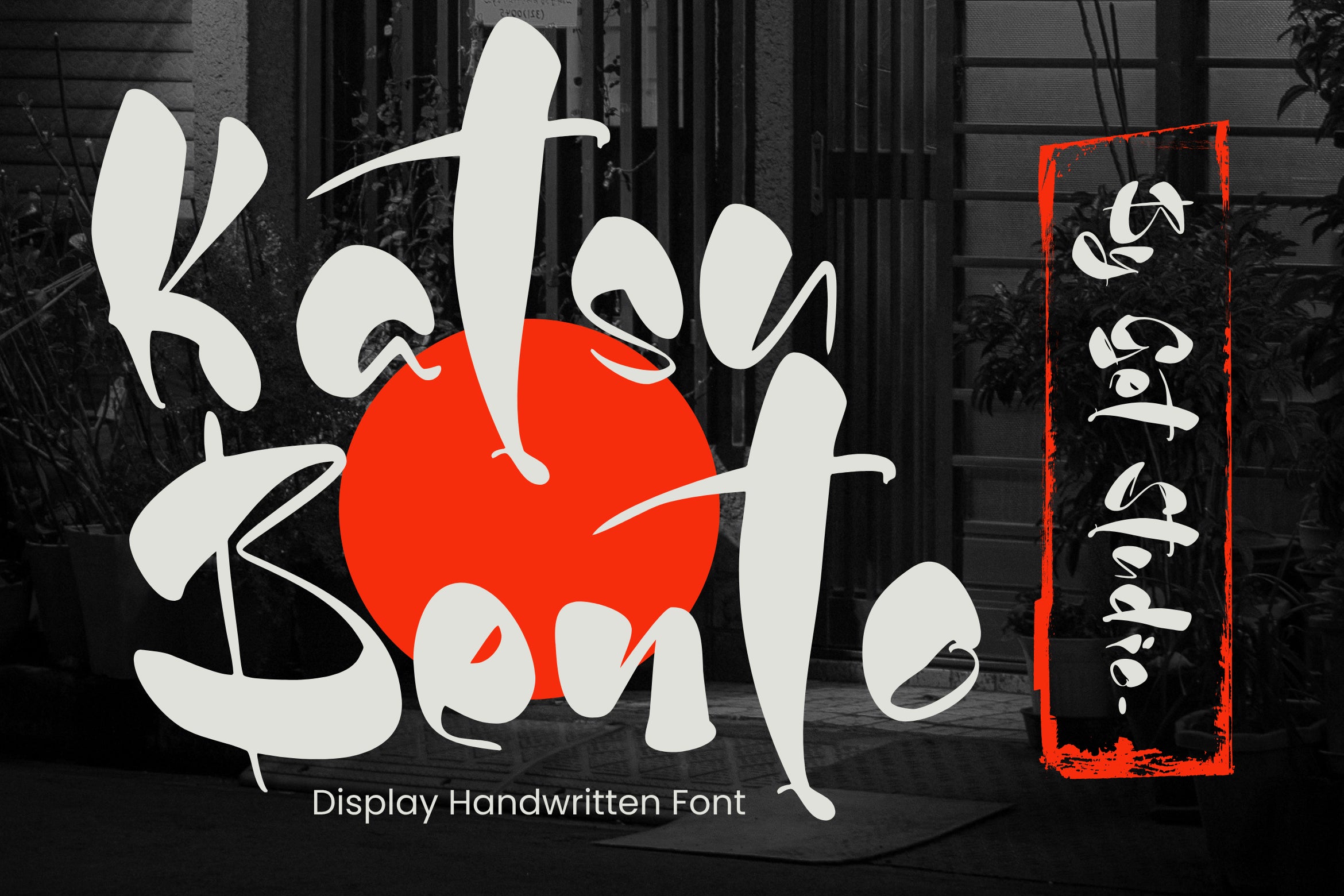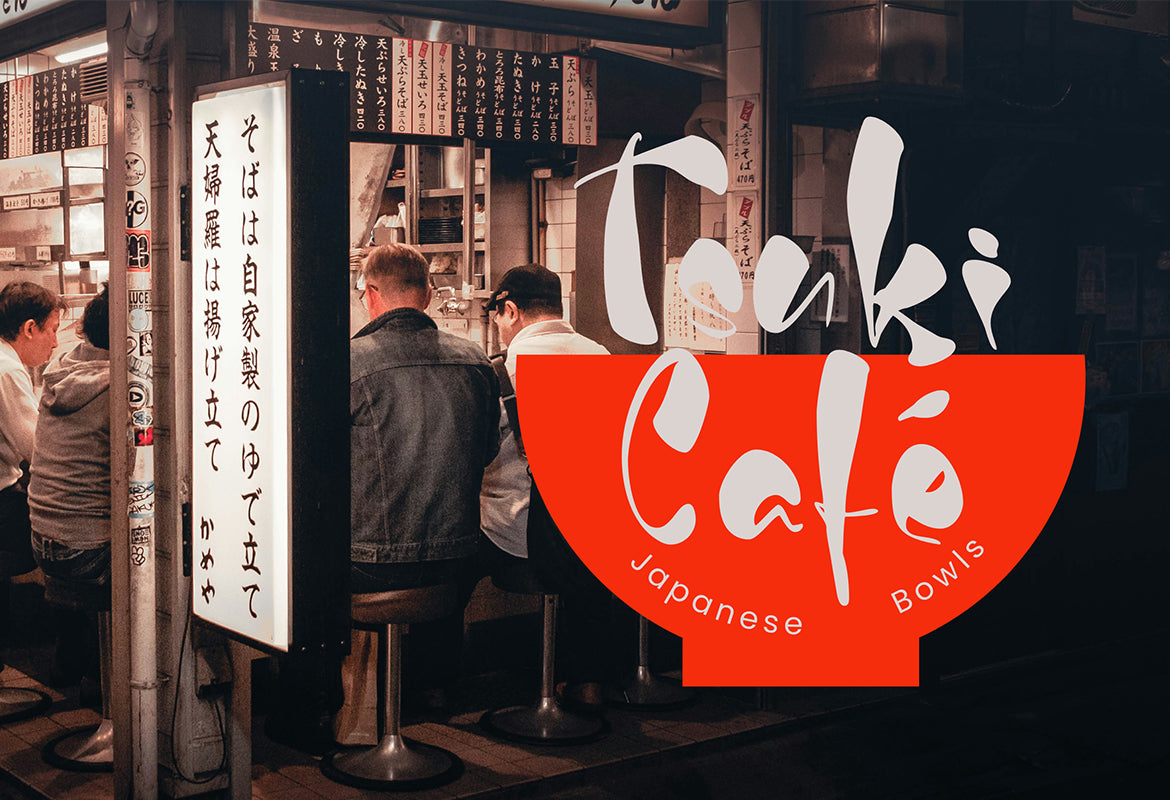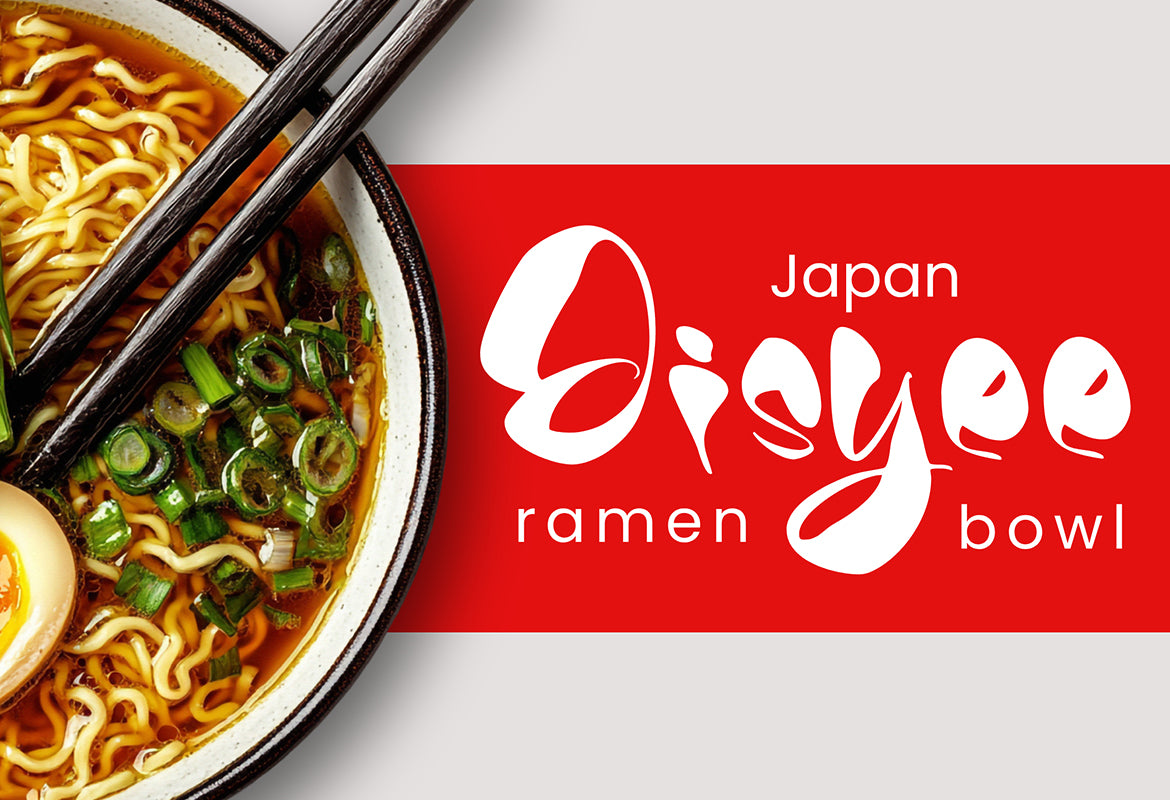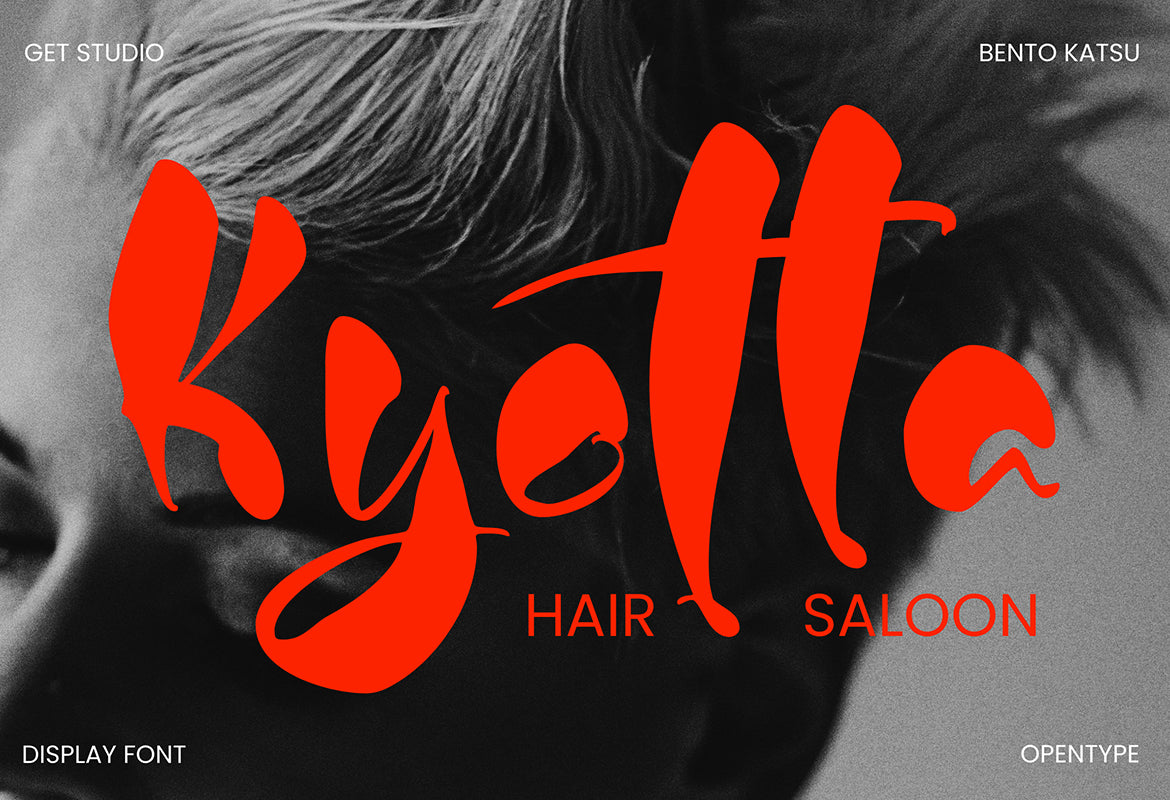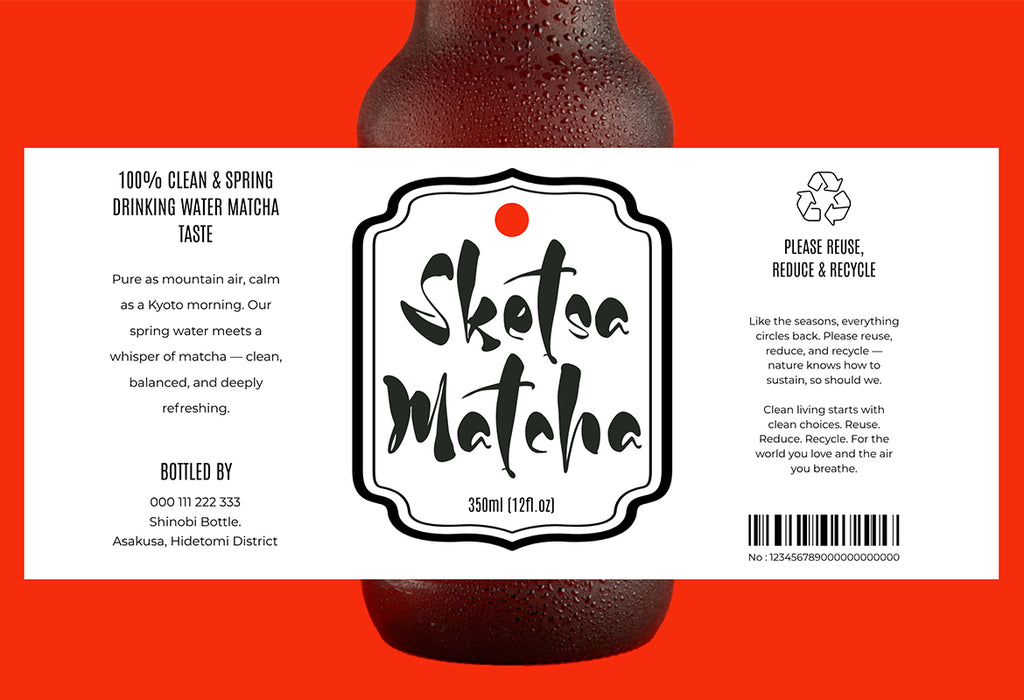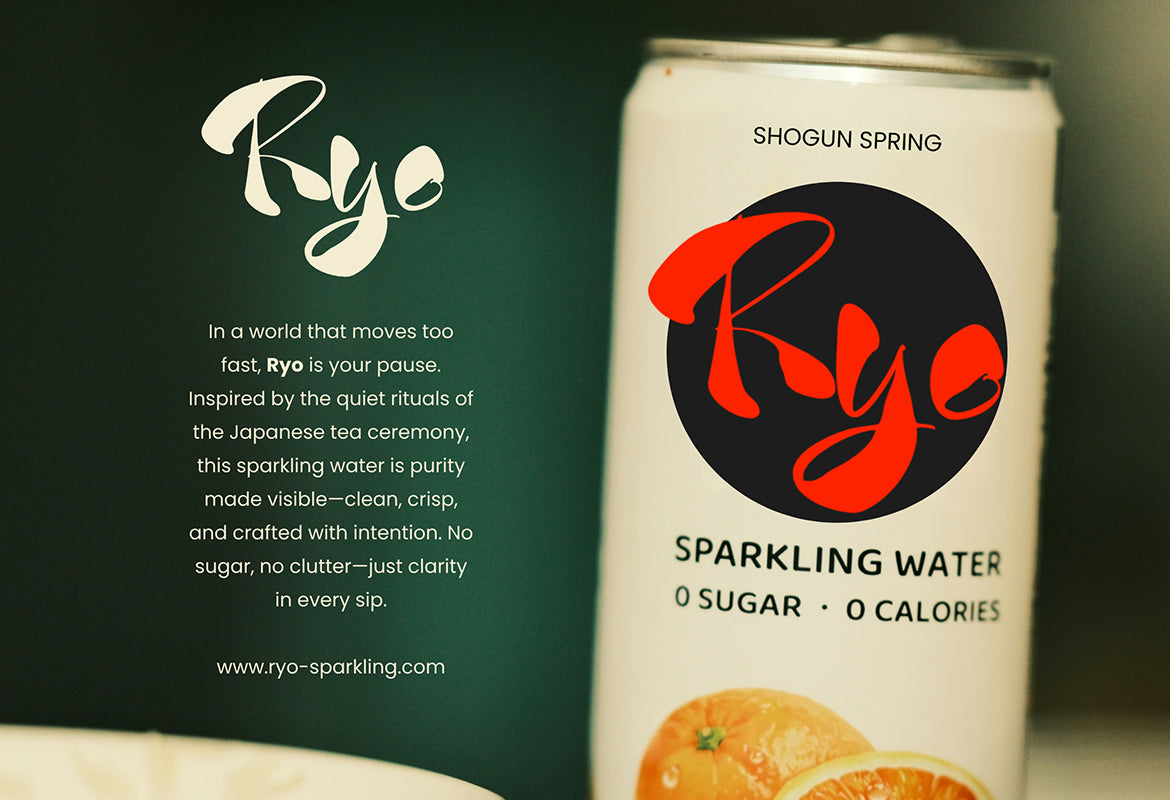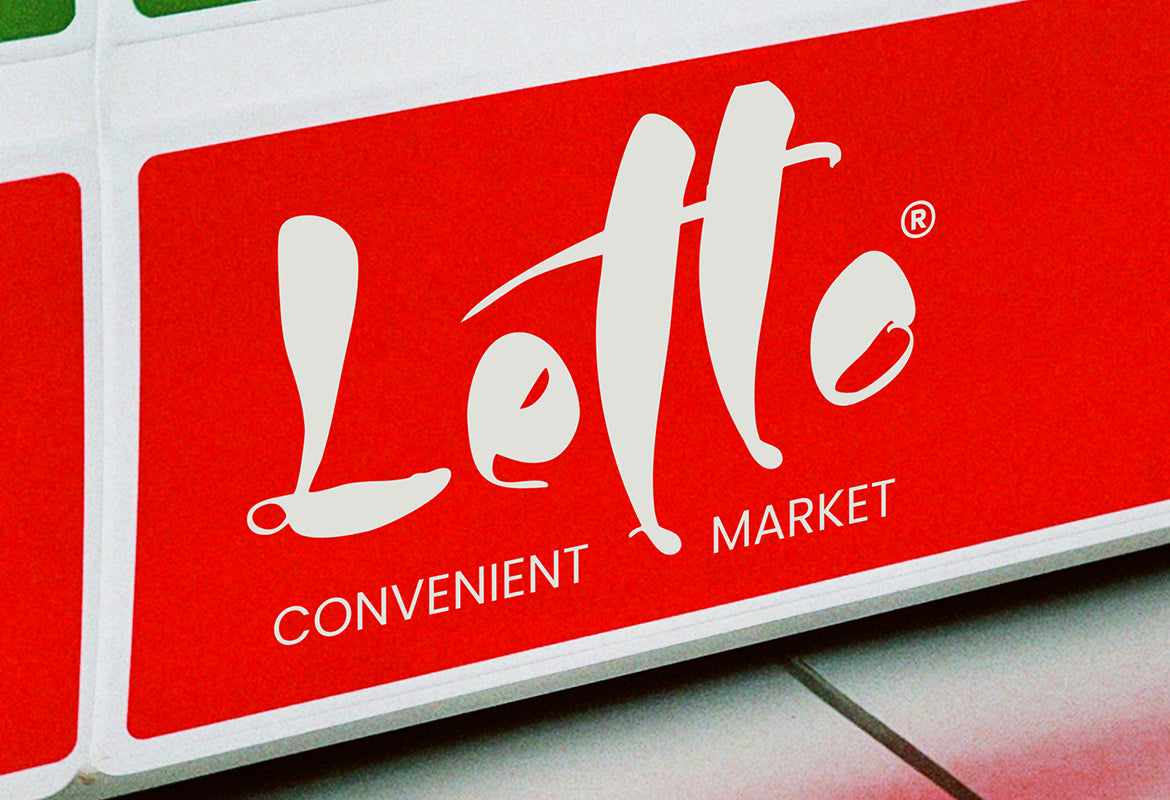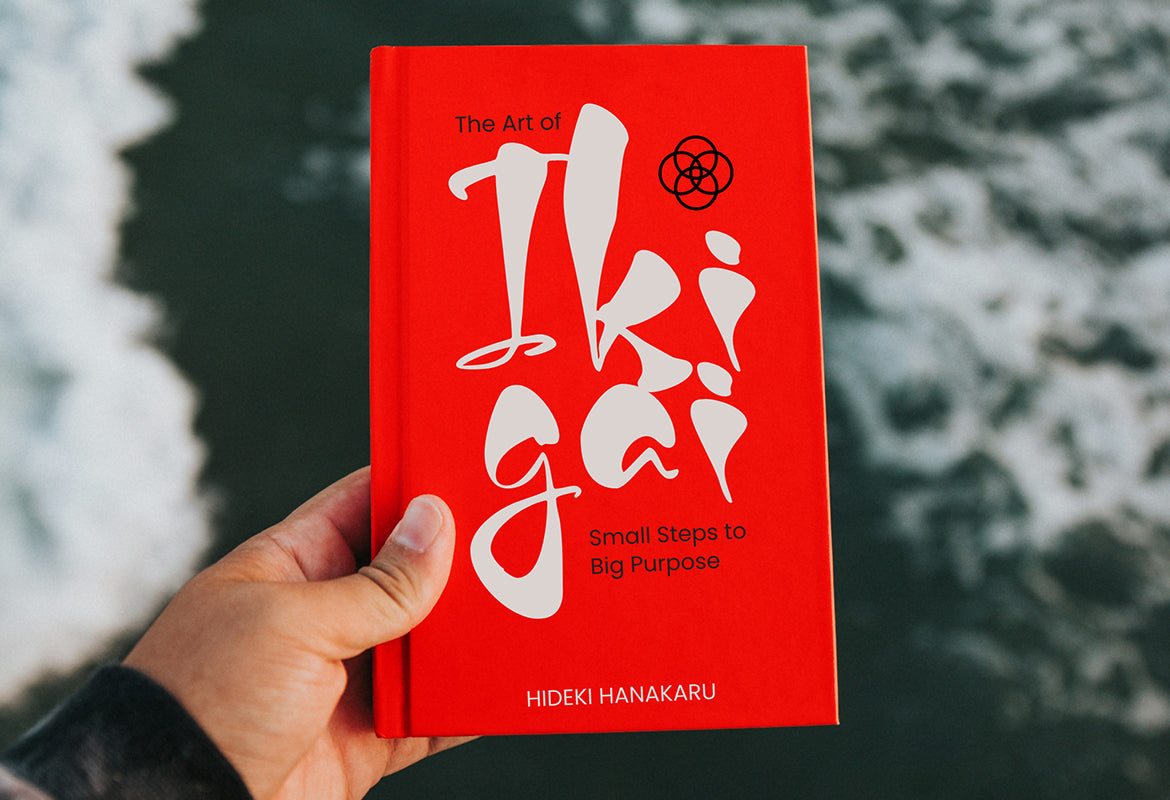
Katsu Bento created by Get Studio is a bold and expressive display handwritten font inspired by modern Japanese street vibes. With energetic brush strokes and dynamic letterforms, it brings a punch of personality to any design.
Perfect for food branding, urban packaging, poster headlines, or anything that needs a stylish and handcrafted Asian flair. The irregular rhythm and bold curves create an authentic, edgy look—just like your favorite bento shop’s signage in downtown Tokyo.